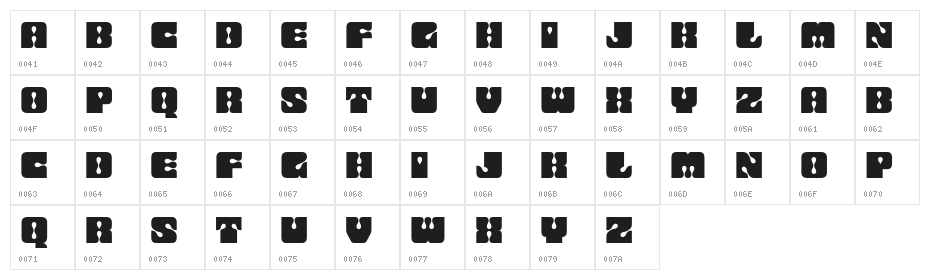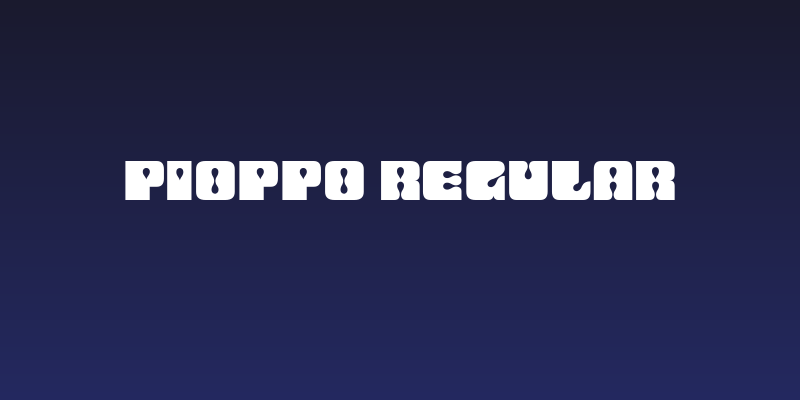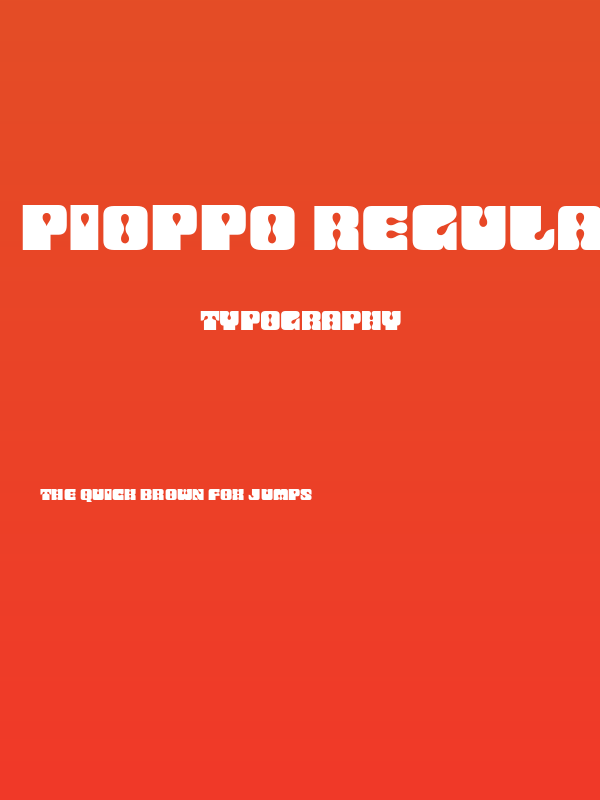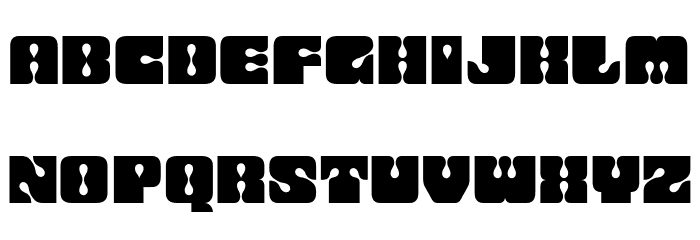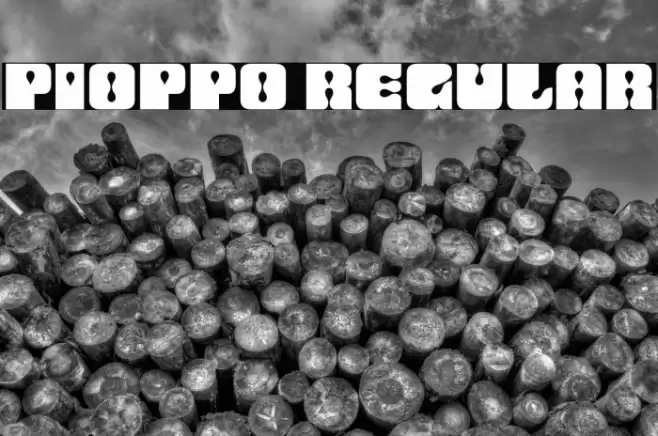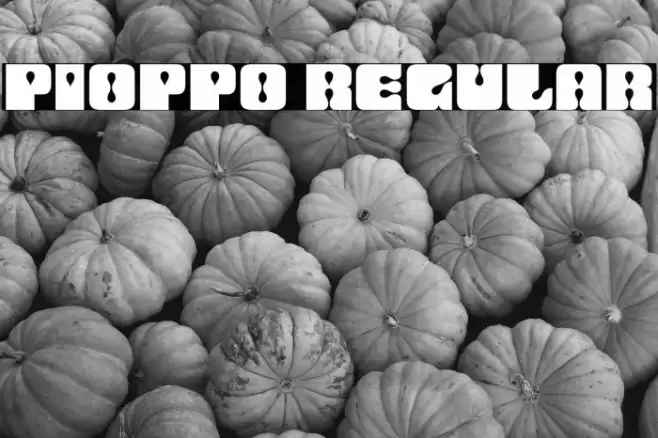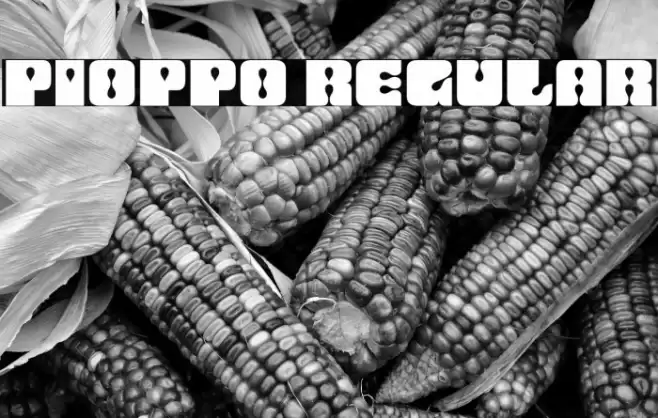
Pioppo Regular Font
Pioppo Regular Description
A bold, decorative font with unique cut-out details in each letter, creating a striking visual effect.
| Proposed Projects | Posters, headlines, branding. |